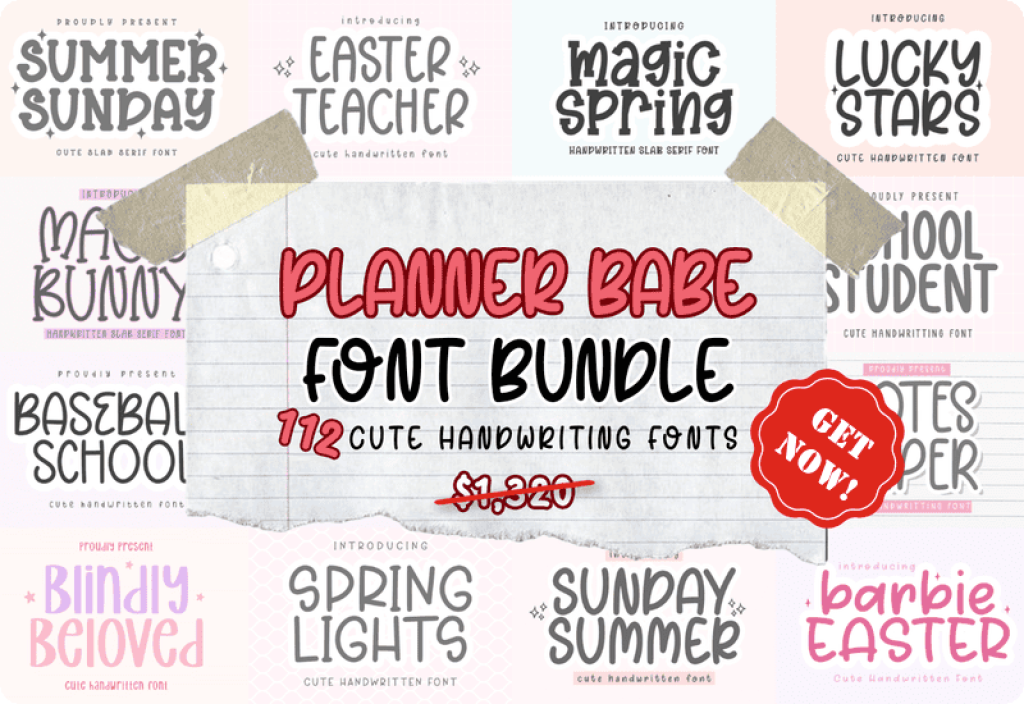
112 Handwritten Fonts for Planners, Crafts, and More
Unlock the potential of your creative endeavors with the Planner Babe Font Bundle by CraftedType Studio. This outstanding collection features 112 premium fonts, each carefully designed to cater to a multitude of design needs.
Unique Styles for Planners and Journals
The Planner Babe Font Bundle features an array of styles perfect for enhancing planners and journals. Fonts like the Farmhouse Handwriting Script and Birthday Schedule Script bring a personal touch to your daily organization tools, making them visually appealing and uniquely yours.
Perfect for Craft Projects
With fonts like Carrot Playful Script and Thicky Thacka Slab Serif, this collection offers an ideal solution for craft projects. Whether you’re using Cricut or Silhouette, these fonts bring creativity and flair to all your DIY endeavors.
Playful and Handwritten Fonts for Personalization
Personalize your stickers and printables with charming fonts such as Magic Bunny Slab Serif and Chocolate Moments Sans Serif. These fonts add a whimsical touch to any project, making them standout and memorable.
Perfect for Seasonal Themes
With fonts like Easter Bunny Script and Christmas Note Sans-Serif, this bundle provides the perfect typography for creating seasonal designs. Add a special touch to holiday cards, festive decor, and themed branding materials.
Detailed Font Overview
- Handwritten Elegance: Fonts like Sweet Gesture Sans Serif and Blindly Beloved Script add a touch of elegance to any project, perfect for formal invitations and refined branding.
- Playful Creations: Fonts such as Quirky Stacked Display and Happy Twigs Fuentes offer a playful vibe, ideally suited for fun, informal designs.
- Impactful Headlines: For bold, attention-grabbing designs, fonts like Retro Thick Slab Serif and Boho Child Display deliver the impact needed to make a statement.
- Thematic Styles: With fonts like Winter Shine Sans Serif and Summer Sunday Slab Serif, you can create thematic projects with ease, catering to specific seasons and events.
- Christmas Note Sans-Serif-Schriftarten Schriftart
- Love Actually Sans Serif Font
- Scrap Book Sans Serif Font
- Lucky Stars Script & Handwritten Font
- Sunday Planner Slab Serif Font
- Awesome Flowers Script & Handwritten Font